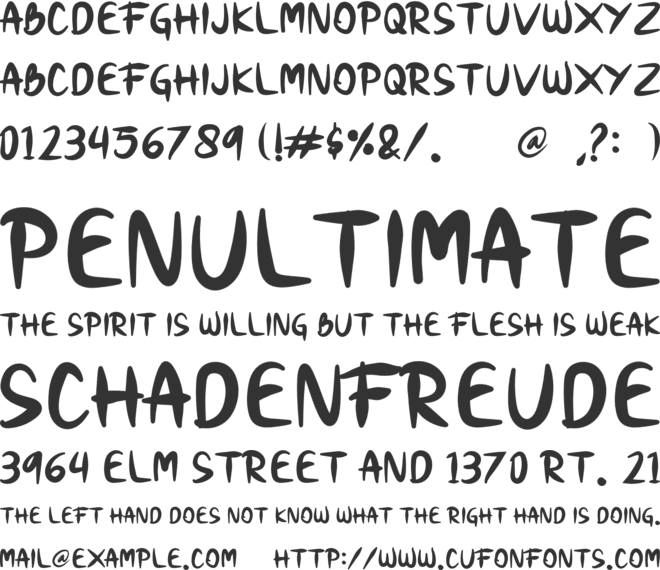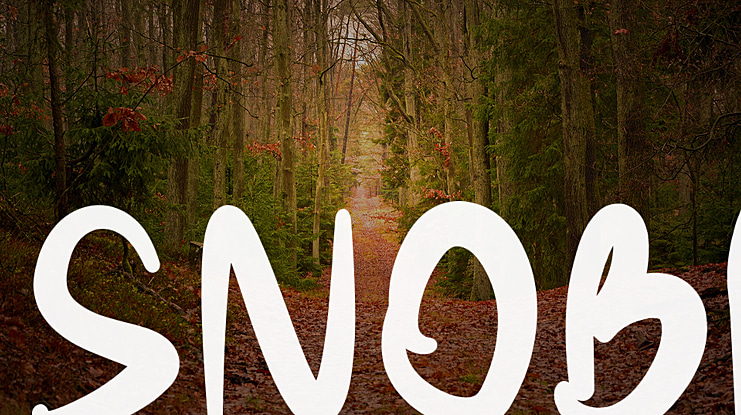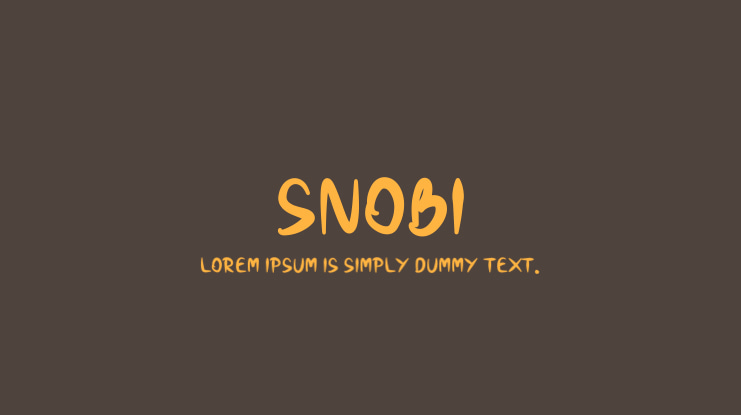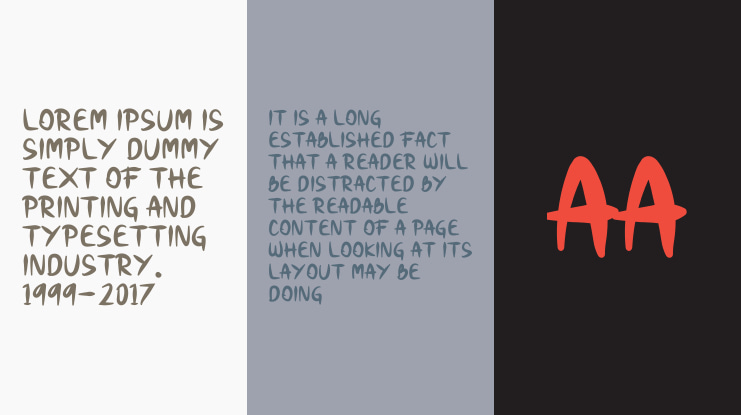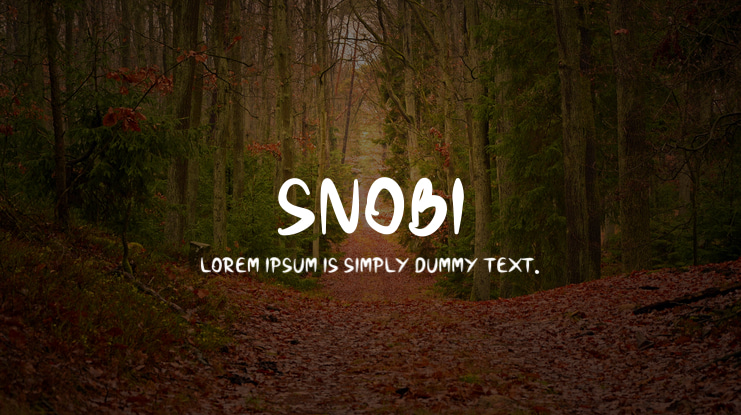
Snobi Font
Intoducing : I am a fun display font. my name is SNOBI. I am child-friendly font. I would look perfect on creating designs targeted towards children. I am also suitable for logos, packaging designs, posters, books, etc.